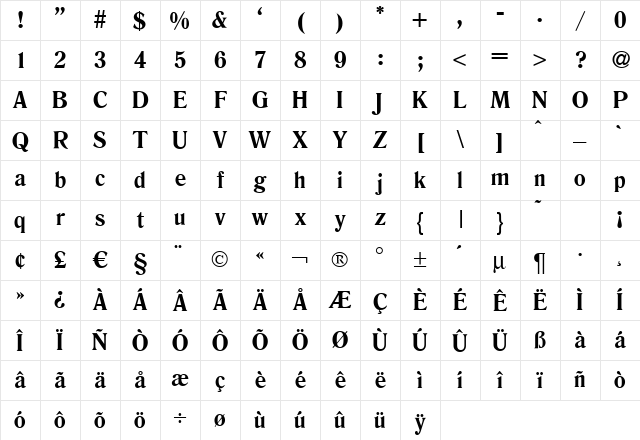
Rookie Bold Free Font
Rookie Bold
Rookie Family
Design Context for Rookie
Rookie is a composed and adaptable typeface that performs quietly and consistently across a wide range of design contexts. Its bold stroke weight gives it real presence on the page.